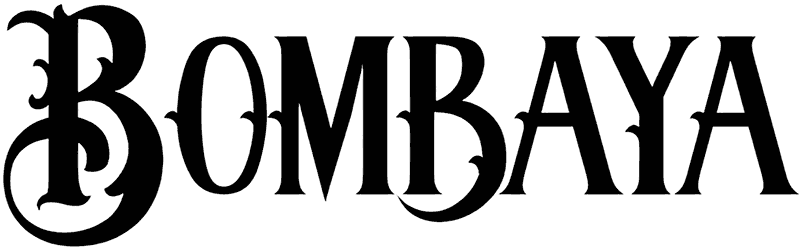
Bombaya Font
With an elegant, stylish, and sophisticated design, while inspired by the initial ancient Gothic font, Bombaya draws nearer to making your design dreams come true through its irregular, jagged, and pointy style.
Places it will stick out, including any traditional movie posters, headlines, magazines, book covers, and so on. Although this font lacks lowercase letters, it can be approved for its sweet vintage theme to give it a shot promptly. For more of this classification, don’t skip our boundless website.